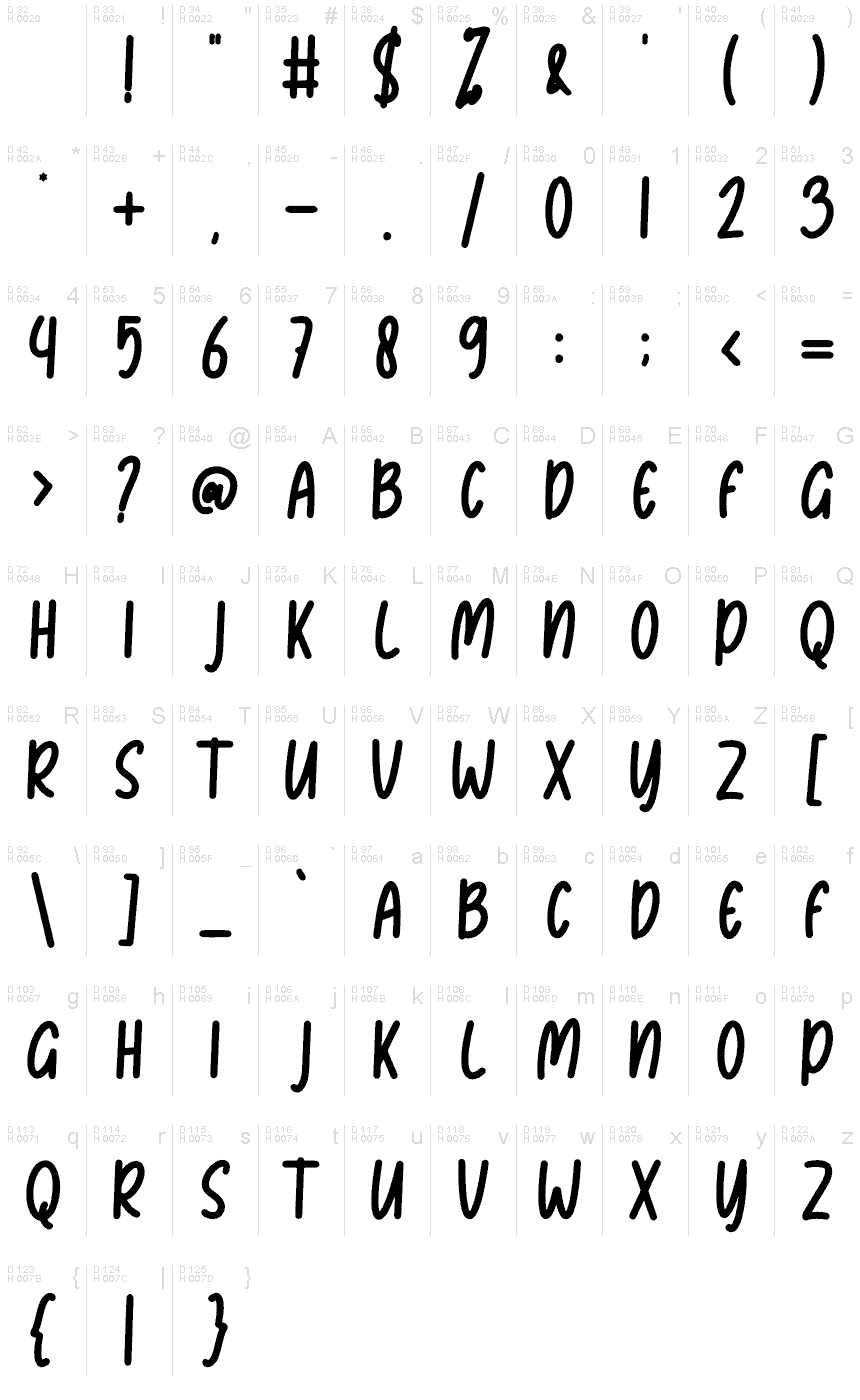
Rumbella
Rumbella handwritten font comes to you thanks to the generous efforts of the Skiiller Studio team and brings with it a touch of originality and a sense of playful mischief that can be added to personal and commercial projects.
Rumbella, with its elegant curvy lines and trendy style, is great for both print and web design. Add a sense of wonder to children’s books and comic strips and use it for packaging designs and logos for brands whose activities are light and carefree and require a friendly atmosphere (food, clothes, etc.). If you wish to bring humor and vibrancy to greeting cards, posters and flyers, or share your happy messages with social media fans and followers, Rumbella is the way to go. You can simply include it in quotes on posters or flyers, or use it for typography in your fashion designs. And you can even include it in online games, create memes, or use it for blog titles and headers.